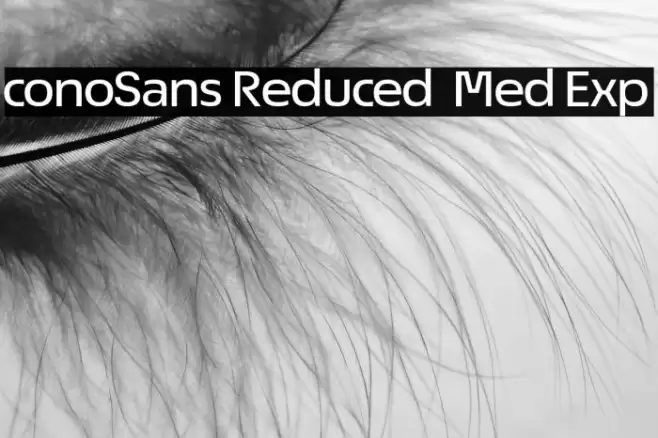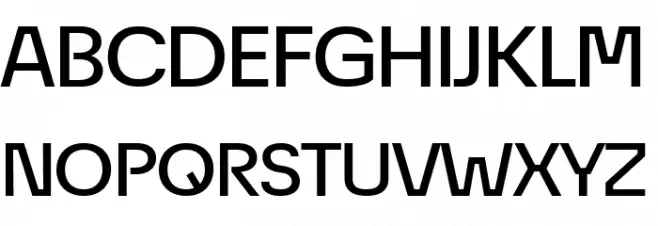
ÉconoSans Reduced 63 Med Exp Font
ÉconoSans Reduced 63 Med Exp Description
This font features a clean and modern sans-serif style with a geometric influence. The characters are well-balanced with a uniform stroke width, providing a harmonious and professional appearance. The uppercase and lowercase letters maintain a consistent height, enhancing readability. The rounded edges of certain letters, like 'O' and 'C', add a subtle softness to the overall design. The font's structure is straightforward, making it versatile for various applications. Its simplicity and clarity make it suitable for both digital and print media, ensuring legibility across different sizes and resolutions.
A modern, geometric sans-serif font with clean lines and uniform stroke width from Regular fonts.